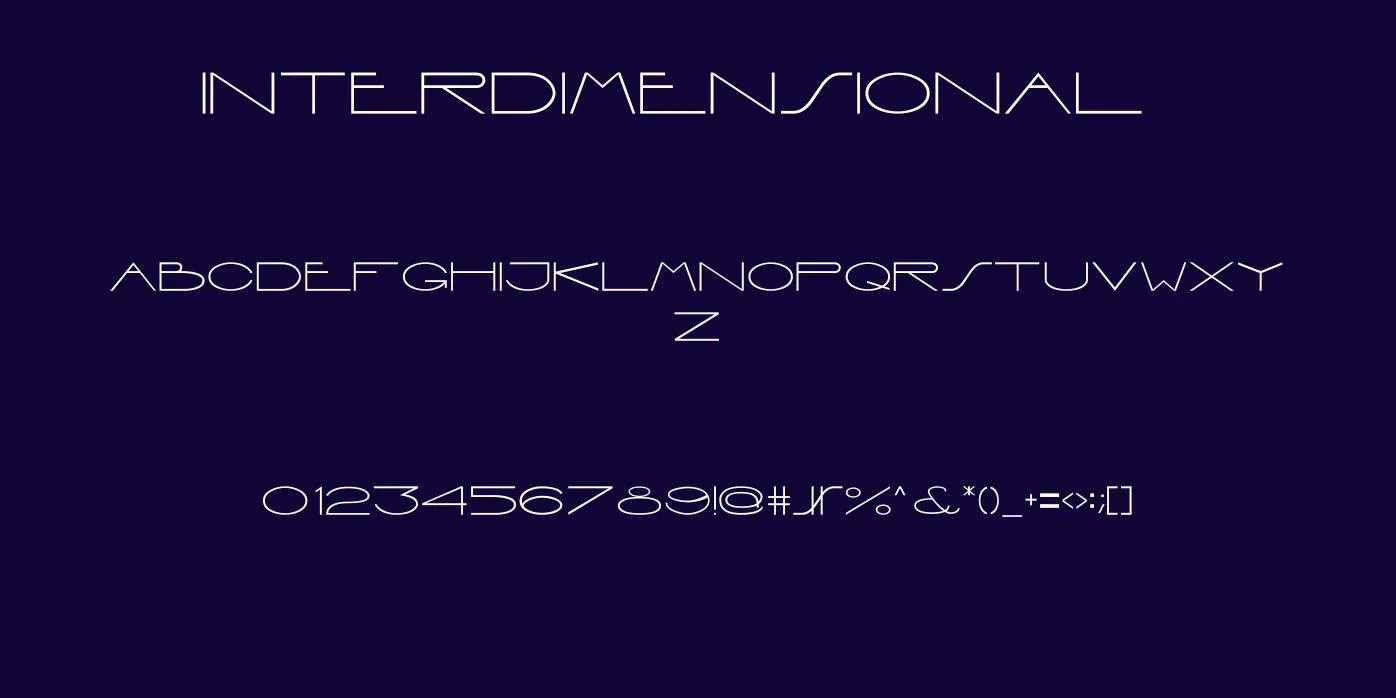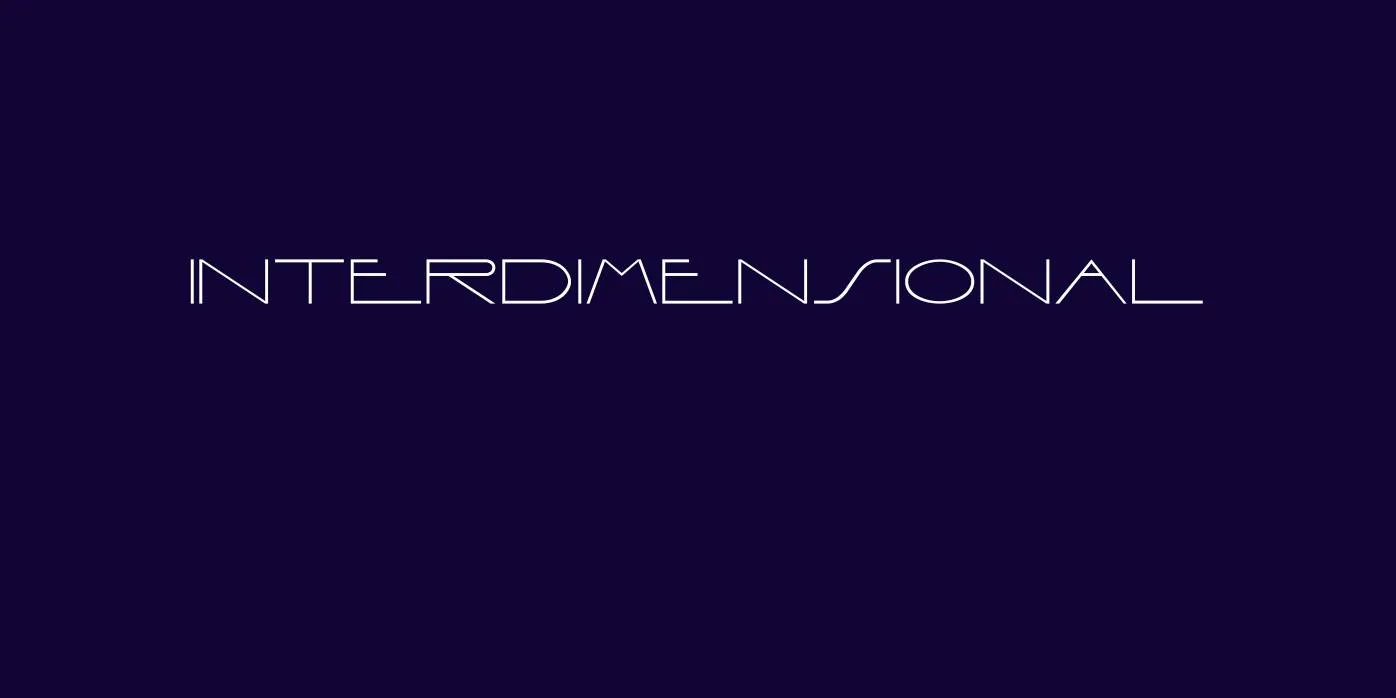
Interdimensional Font
Interdimensional Font is a techno type of font. Jim Pingle is the designer of this typeface. The characters of this typeface are fine-looking, classic, and readable. There are 256 stunning glyphs for this typeface.